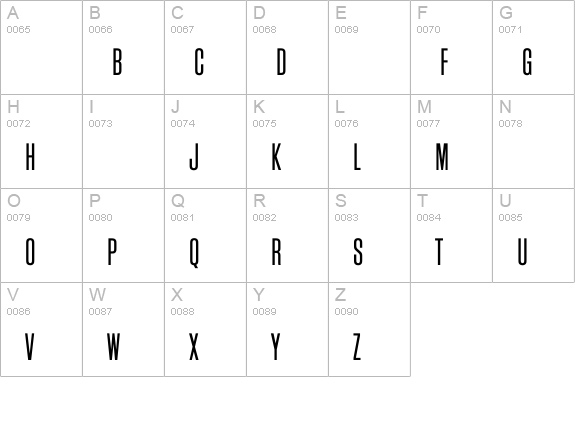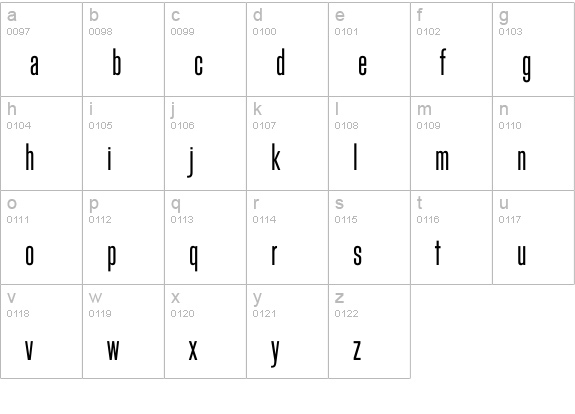
BlockGothicLightExtraCond font is a sleek and modern typeface that exudes a sense of minimalism and sophistication. With its clean lines and condensed design, this font is perfect for creating a contemporary and professional look in your designs. The sharp edges and geometric shapes give BlockGothicLightExtraCond a bold and striking appearance that is sure to capture attention. What's even better is that BlockGothicLightExtraCond font is available for free download at FontsMarket.com. This means you can easily access this stylish font without any cost, making it a great choice for both personal and commercial projects. Don't miss out on the opportunity to enhance your designs with the unique flair of BlockGothicLightExtraCond font - download it today and elevate your typography game!